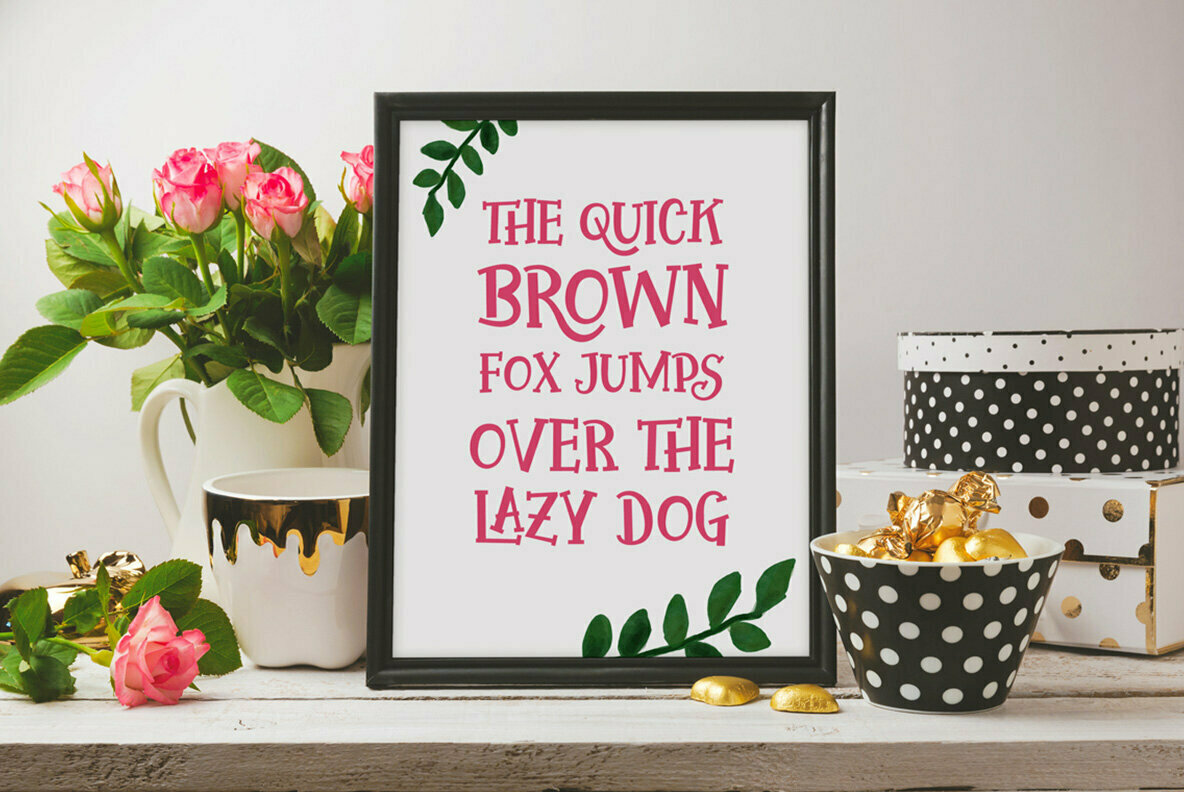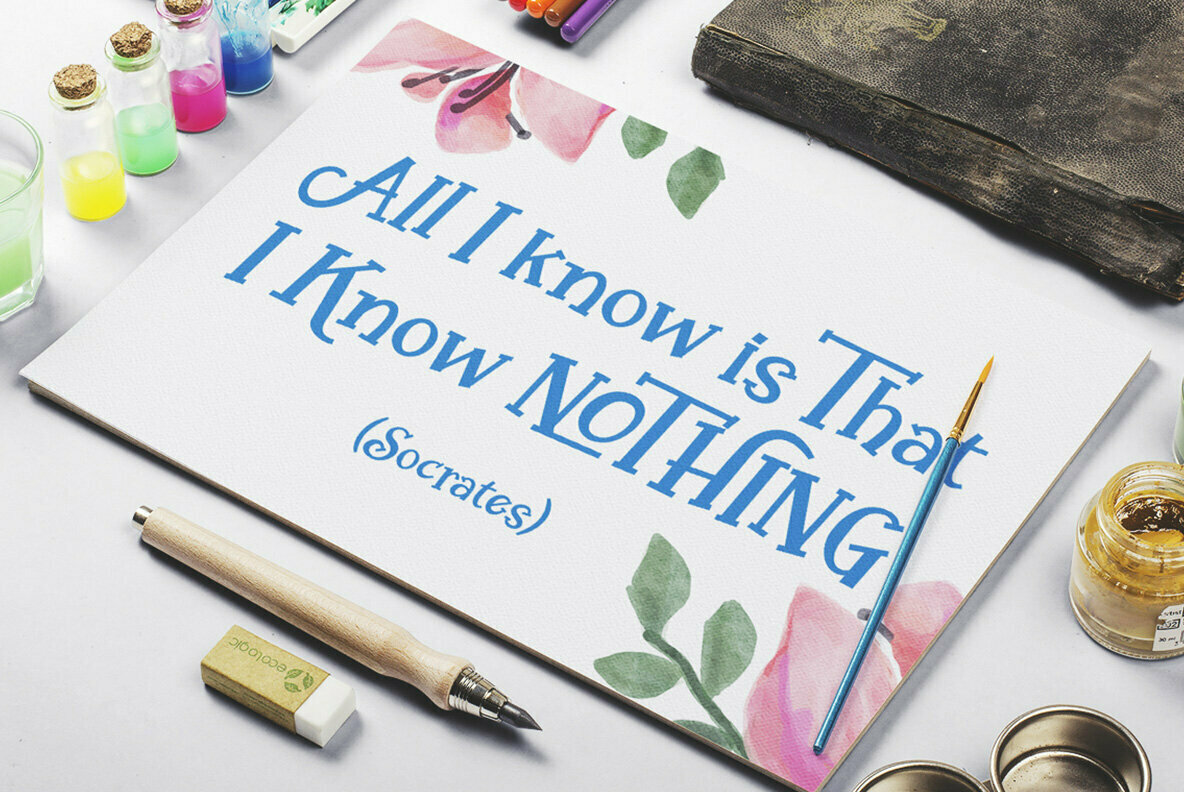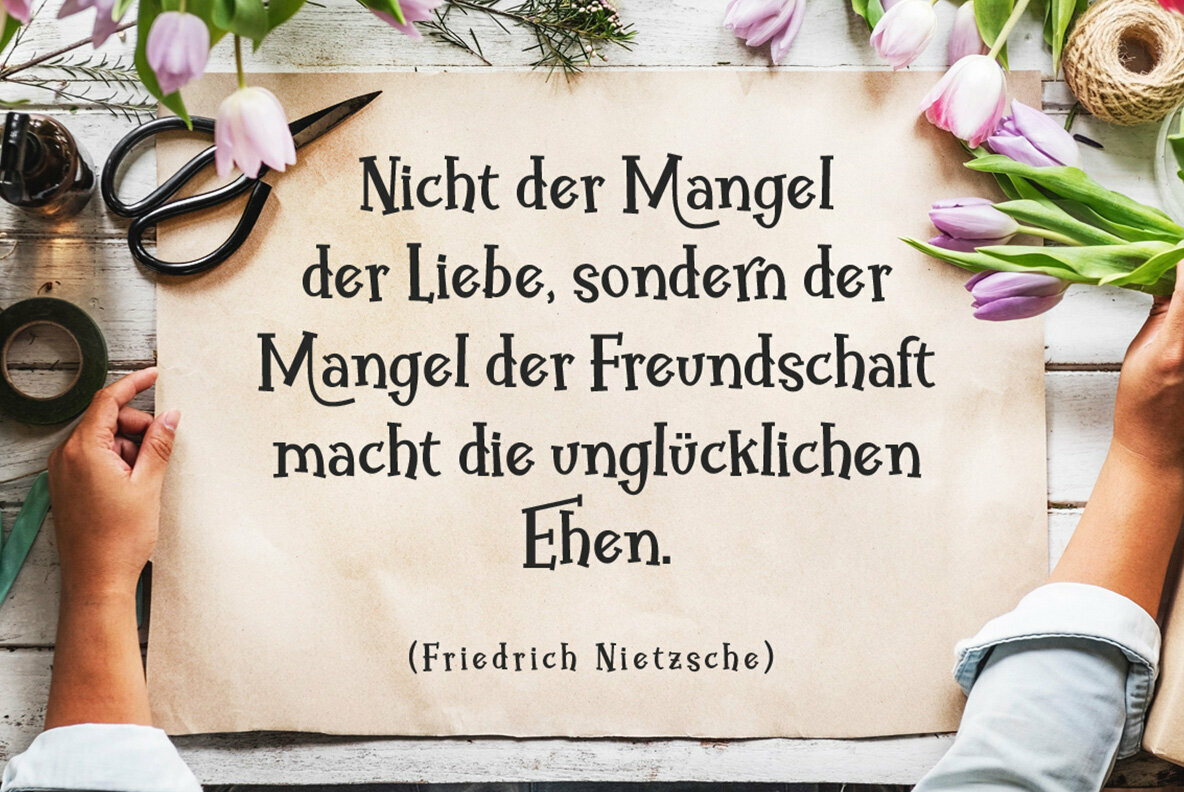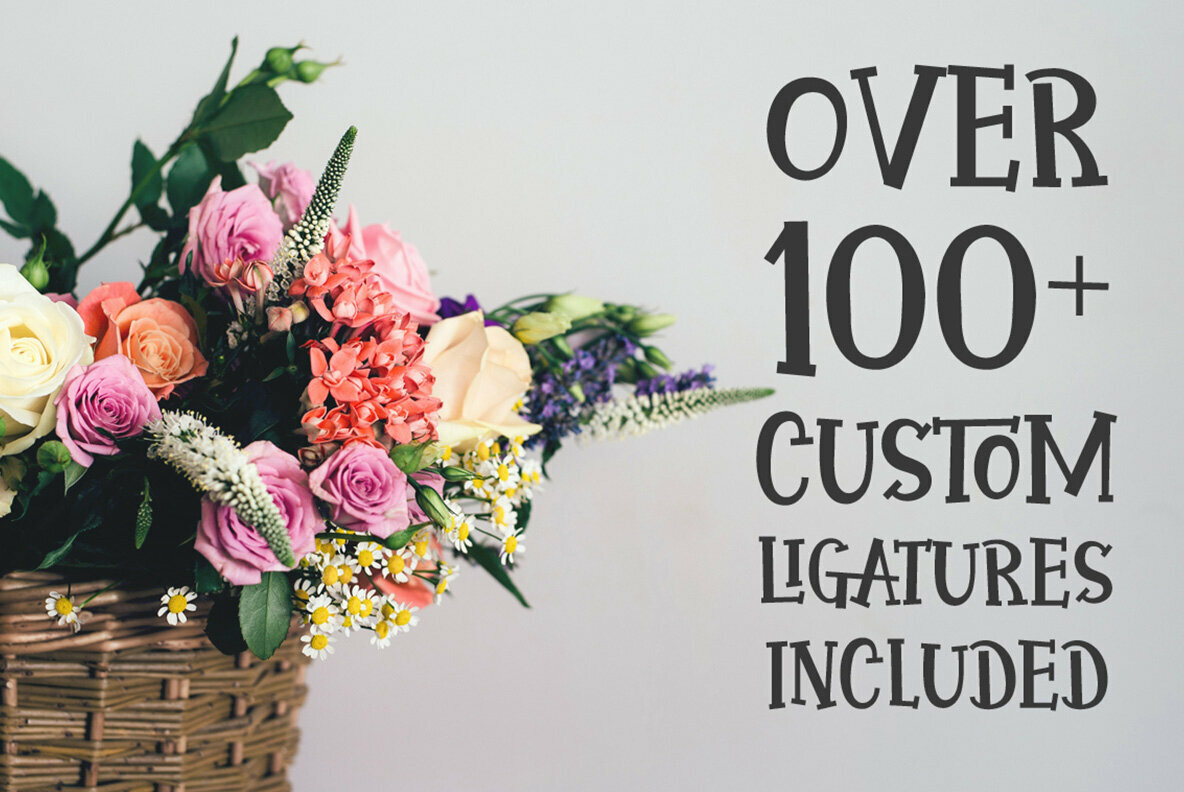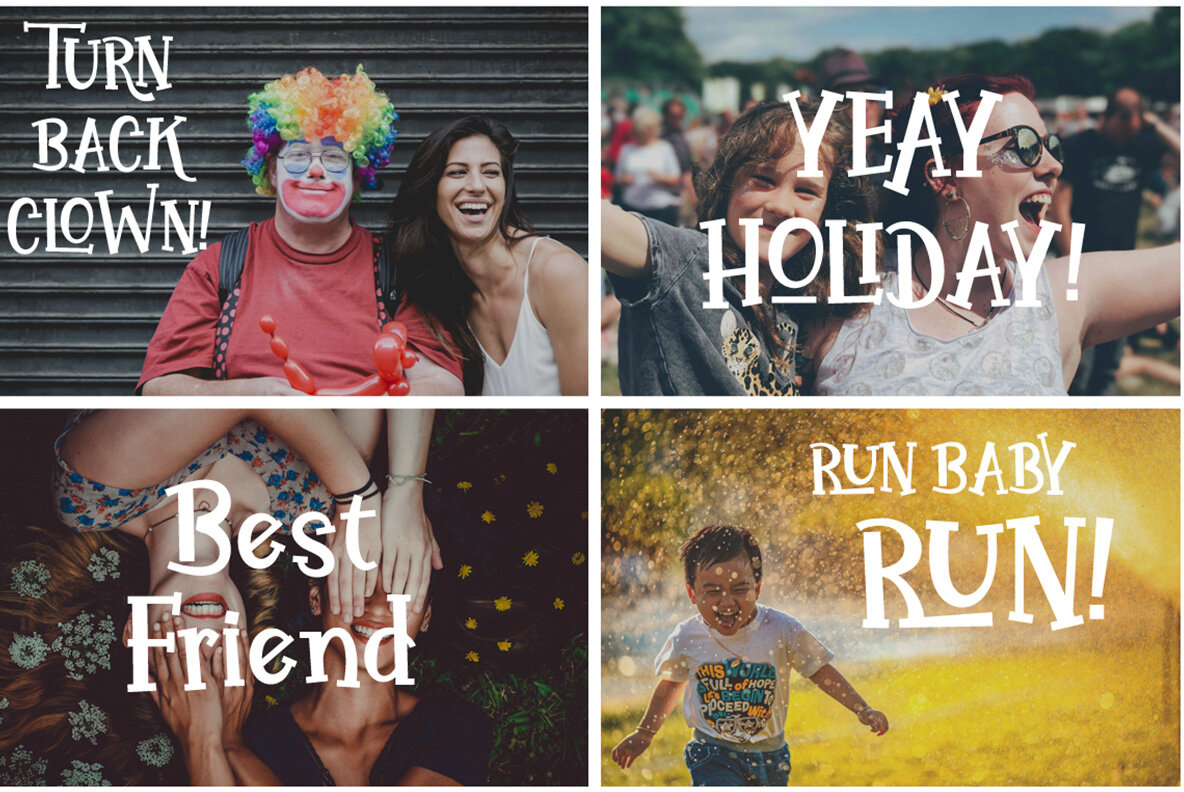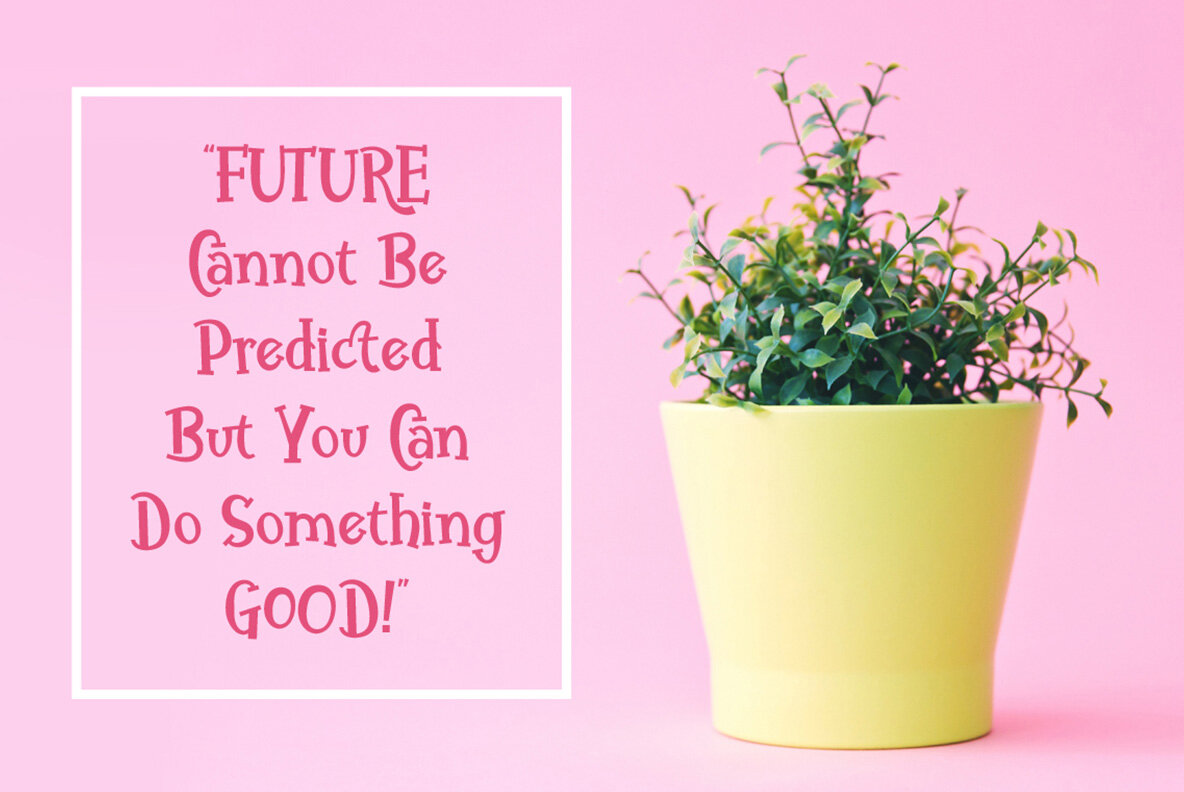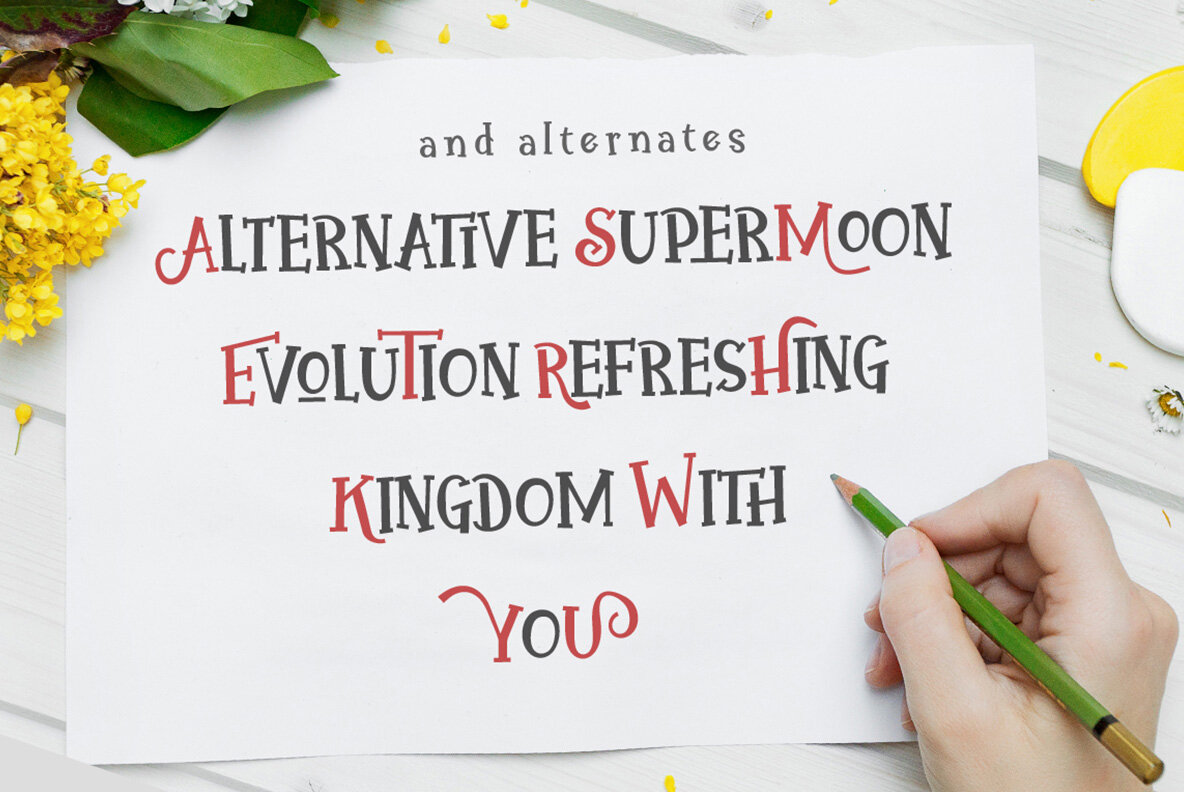
Philosofiya Font
Philosofiya
The Philosofiya typeface by Ahmad Ramzi Fahruddin is an eclectic digital handmade font brimming with whimsical character shapes. Each letter presents distinctive forms between uppercase, lowercase, and ligatures, making it an exceptional choice for diverse projects with minimalist, romantic, modern, or playful themes. Its versatility extends to headlines and body text, creating visually engaging designs.Philosofiya: Playful Typeface With Dynamic Ligatures